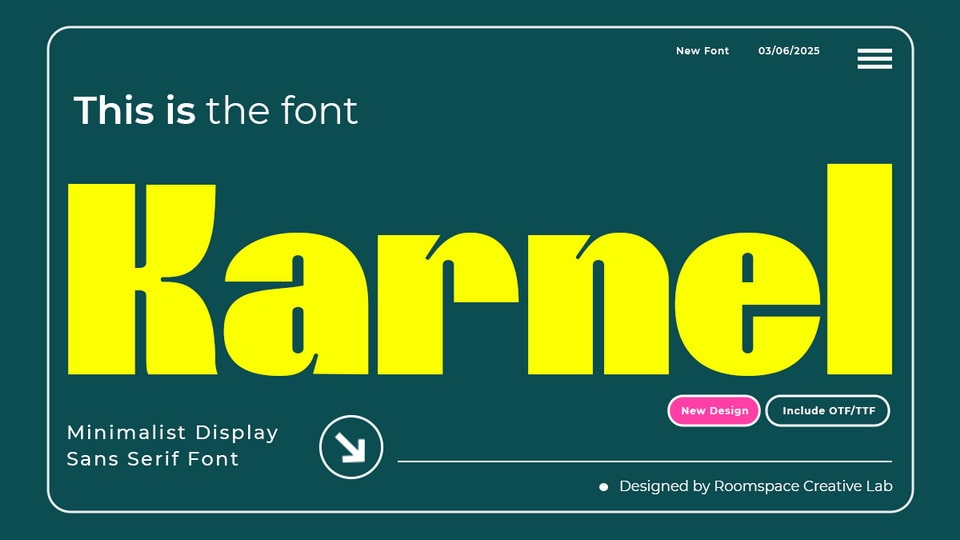
Download Karnel font, a bold minimalist sans serif display typeface designed to make a powerful visual statement. Karnel is perfect for logo design, branding, editorial headlines, tech interfaces, and modern creative projects.